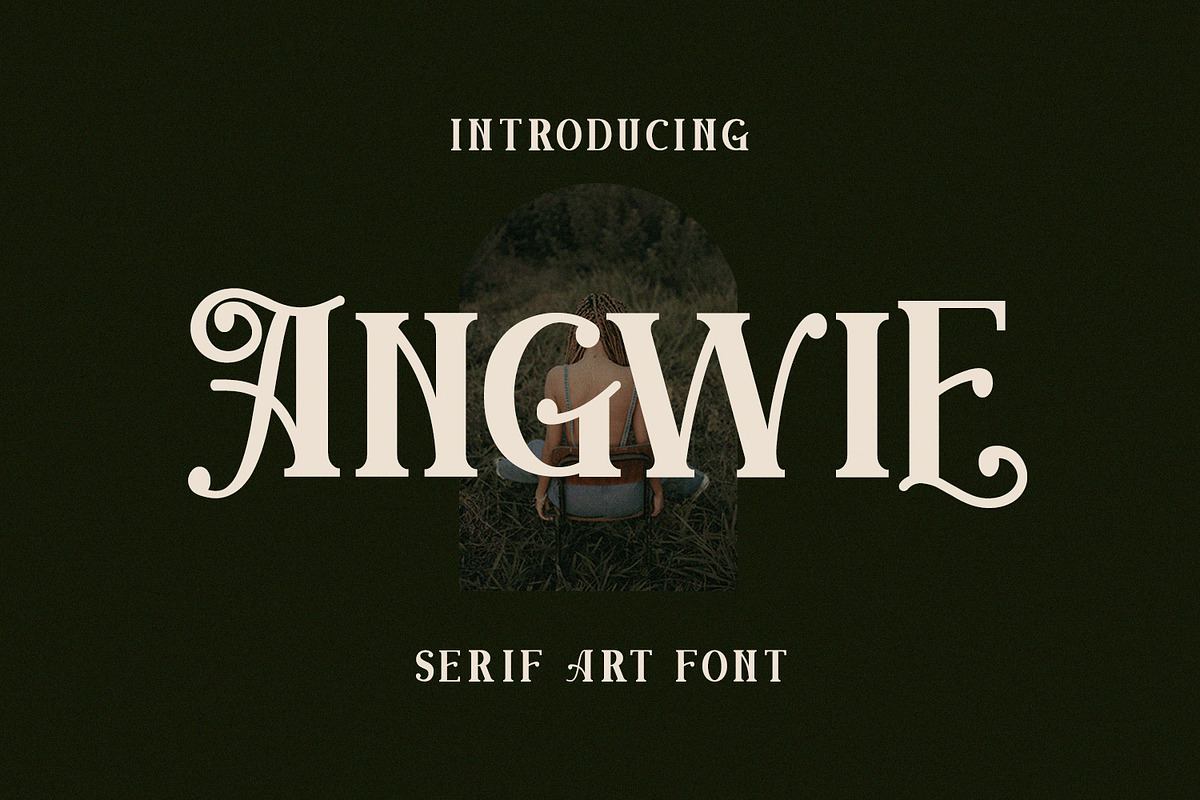
Angwie Serif Art Font Free Download
The Angwie Serif Art Font Free Download is a sophisticated and artistic serif typeface that blends modern elegance with creative flair. Perfect for editorial design, art galleries, luxury branding, and high-end packaging, this font adds a unique, artistic touch to your typography projects.
With its distinctive letterforms, clean lines, and artistic accents, Angwie stands out while maintaining readability. It includes uppercase and lowercase letters, numbers, punctuation, and multilingual support, making it versatile and suitable for both digital and print applications.